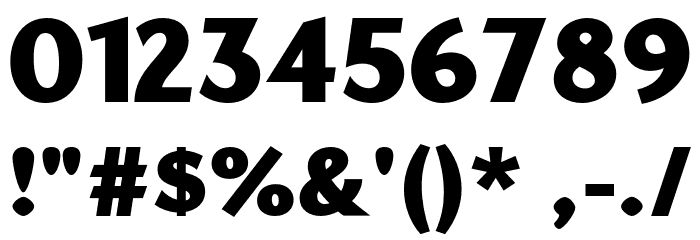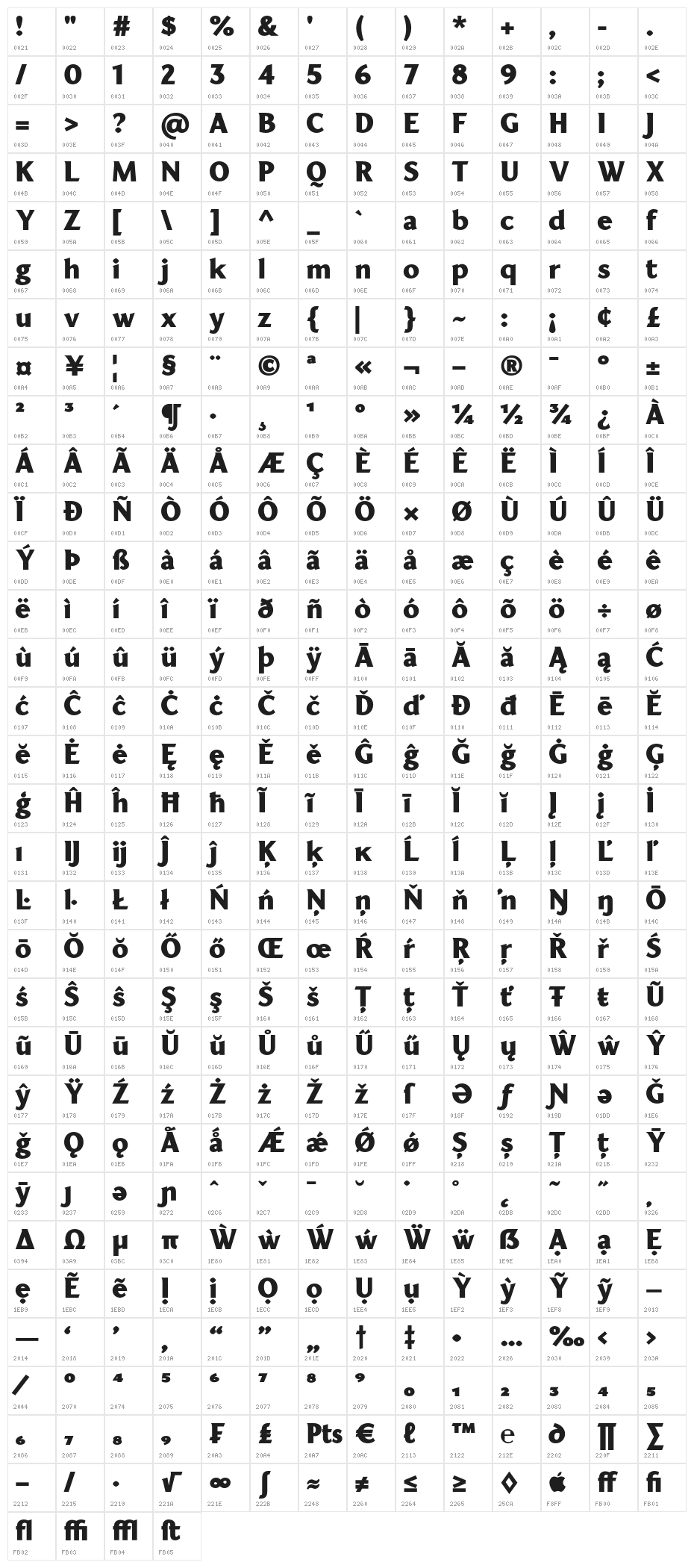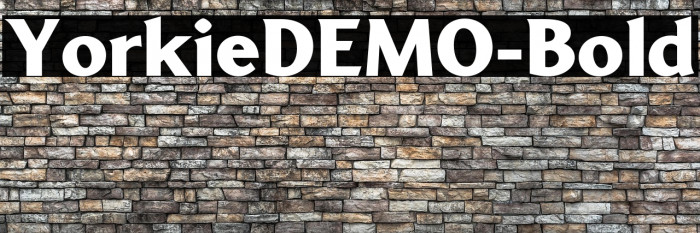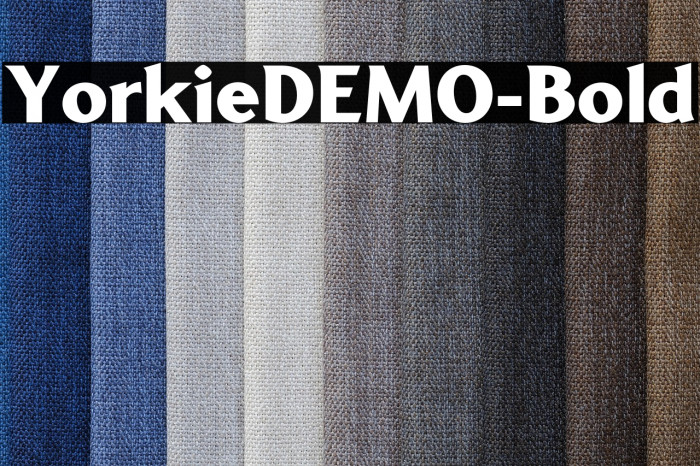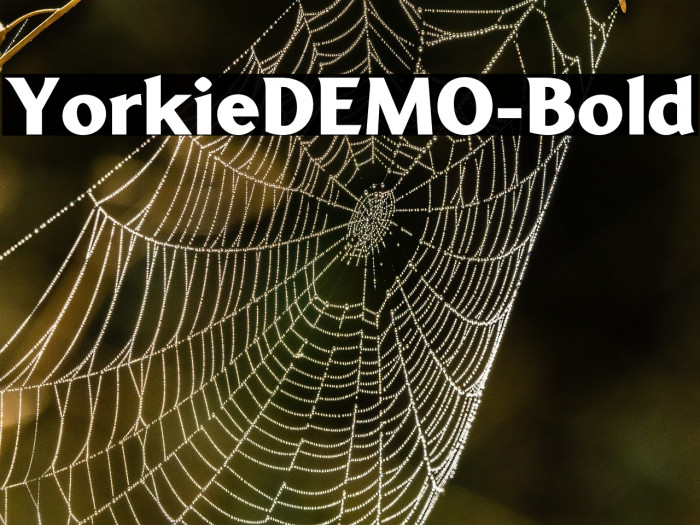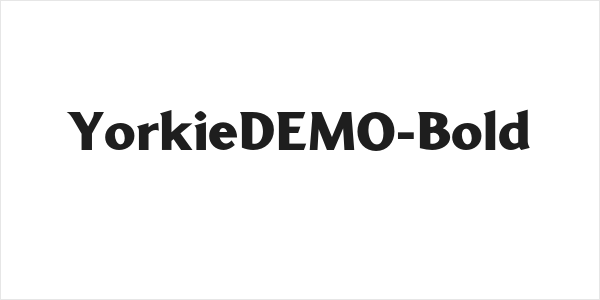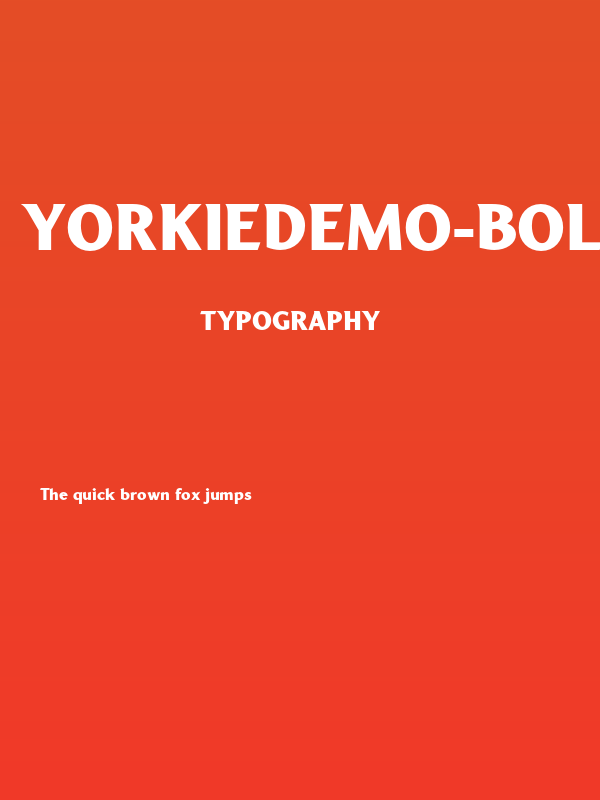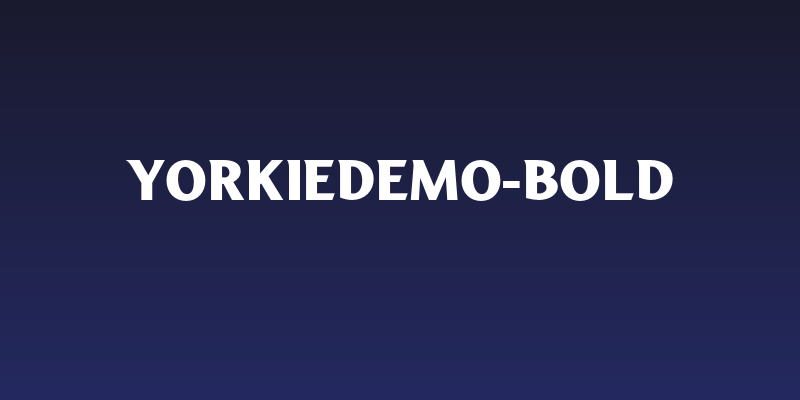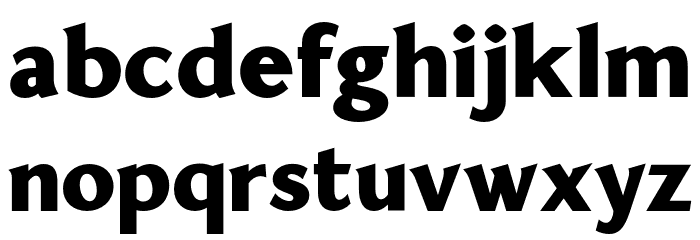
YorkieDEMO-Bold Font
YorkieDEMO-Bold Description
This font features a bold and assertive style with strong, clean lines and a modern aesthetic. The uppercase letters are well-proportioned, offering a sense of stability and confidence. The lowercase letters maintain a consistent weight, providing a harmonious flow. Numbers are clear and legible, making them suitable for various applications. Special characters are distinct and well-integrated, enhancing the font's versatility. The overall design is impactful, making it ideal for projects that require a strong visual presence.
| Proposed Projects | Ideal for branding, headlines, posters, and advertising materials where a bold statement is needed. |